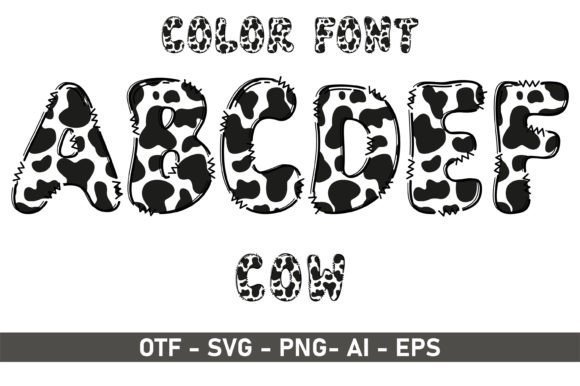
Have you ever found yourself staring at a blank page, wondering how to bring your creative idea to life? You know that feeling when everything seems perfect, but something’s missing – a spark that sets your design apart from the rest. For many designers, that spark comes in the form of a unique and playful font, like the Cow Font.
This charming font is a staple in designs that aim to convey a sense of fun and imagination, from children’s books to posters and invitations. Its versatility and creative flair make it a valuable asset for designers looking to add a touch of personality to their work. With its compatibility with popular cutting machines and design programs, the Cow Font is an essential tool for anyone looking to bring their creative vision to life.
Cow Font Key Features
- Unique Characteristics: Cow Font is a sans-serif font with a distinctive, playful feel, featuring rounded edges and a friendly, approachable tone.
- Kerning and Ligatures: Cow Font includes advanced kerning and ligature pairs, ensuring that text is displayed with precision and clarity.
- Font Weight and Style: The font comes in a range of weights, from Light to Extra Bold, and includes styles such as Regular, Italic, Bold, and Bold Italic.
Cow Font Review
As a designer, I was excited to dive into the “Cow Font” and see what it had to offer. Here’s my honest review:
- Unique aesthetic: The “Cow Font” has a quirky, playful feel that’s sure to stand out in any design.
- Good for headings: The font’s bold, eye-catching style makes it perfect for headings and titles.
- Fun for creative projects: The “Cow Font” is great for projects that need a lighthearted, whimsical touch.
- Limited legibility: The font’s bold style can make it difficult to read in smaller sizes or at a distance.
- Not suitable for body text: The “Cow Font” is best used for headings and titles, as it can be overwhelming for large blocks of body text.
- May not be suitable for formal designs: The font’s playful style may not be suitable for formal or professional designs.
Overall, I think the “Cow Font” is a fun and unique addition to any designer’s toolkit. While it has some limitations, it’s perfect for creative projects and can add a touch of personality to your designs.
Cow Font is a fun and playful font that is perfect for creative projects such as:
– Children’s books and educational materials.
– Food and beverage branding.
– Farm-themed designs and illustrations.
To get the most out of Cow Font, try using it in combination with other playful fonts and graphics to create a fun and engaging design.
Alternatives to Cow Font
Cow Font is a unique, hand-drawn font, but sometimes designers need alternative options. Here are a few alternatives to consider:
Great Vibes is a beautiful, handwritten font that is perfect for creative projects. It’s a great alternative to Cow Font for titles, headings, and quotes. It’s more elegant and sophisticated, making it ideal for high-end designs.
Comparison: Great Vibes is more refined and polished than Cow Font, but still retains a handwritten feel.
Carolyna Pro is a modern, elegant font that is great for titles, headings, and body text. It’s a versatile font that works well for both digital and print designs. It’s a good alternative to Cow Font for designs that require a touch of sophistication and elegance.